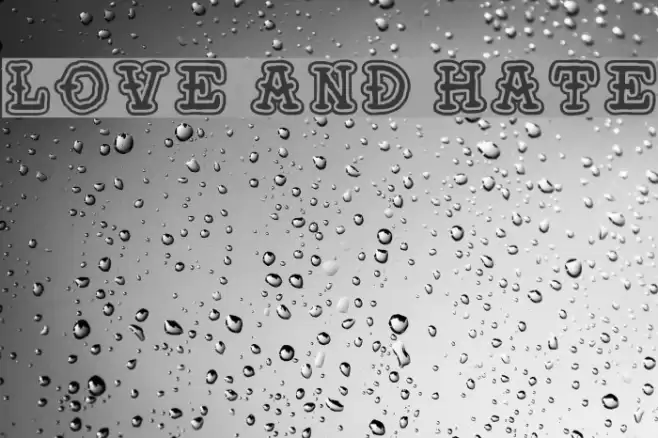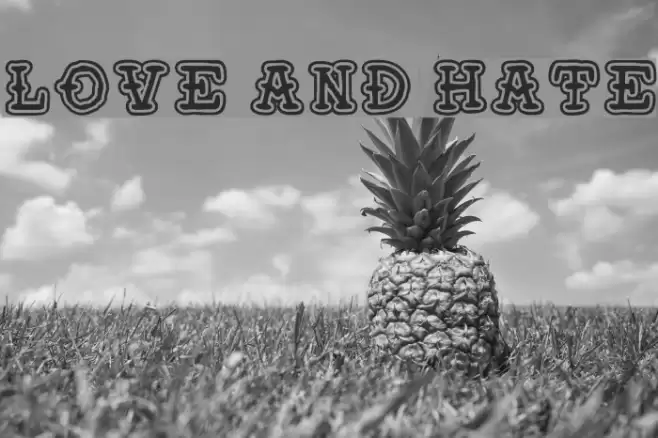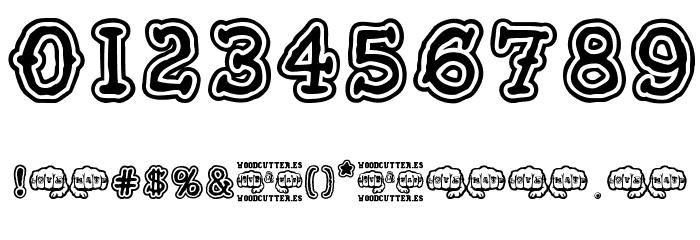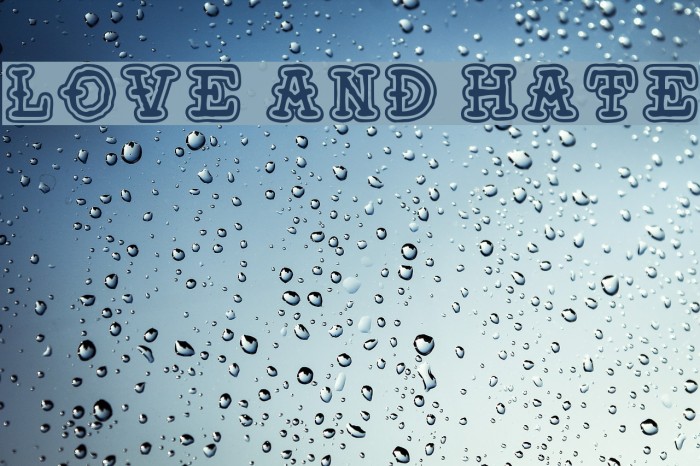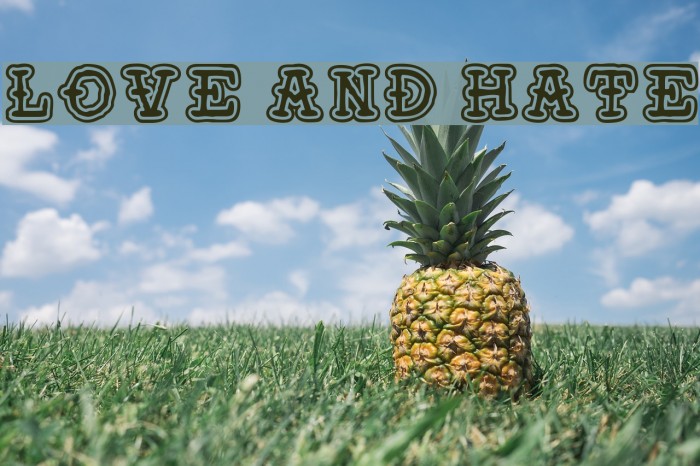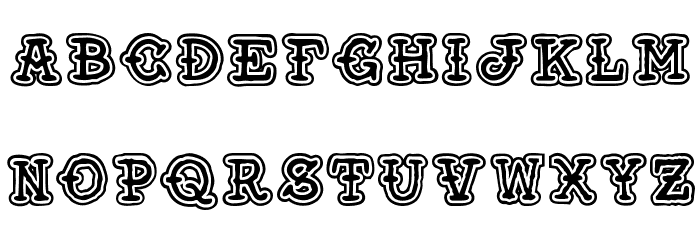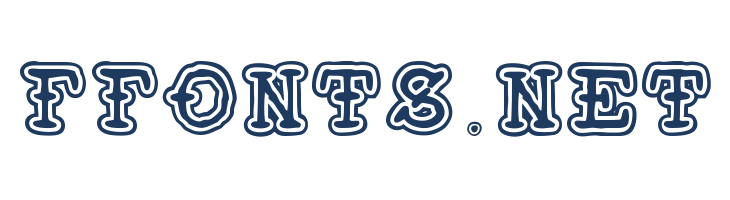
Love and Hate Font
Love and Hate Description
This font features a bold, playful style with a distinct outline that gives each character a three-dimensional effect. The letters are uppercase and lowercase, with a consistent thickness and rounded edges, creating a friendly and approachable appearance. The numbers and special characters follow the same design principles, ensuring uniformity across all glyphs. This font's unique style makes it stand out, making it suitable for creative and eye-catching designs.
A bold, outlined font with a playful, three-dimensional effect from Valentine's Day fonts.
- Proposed Projects: Ideal for posters, logos, children's books, and any project requiring a fun and engaging typeface.
- Overall Style: Playful, Decorative